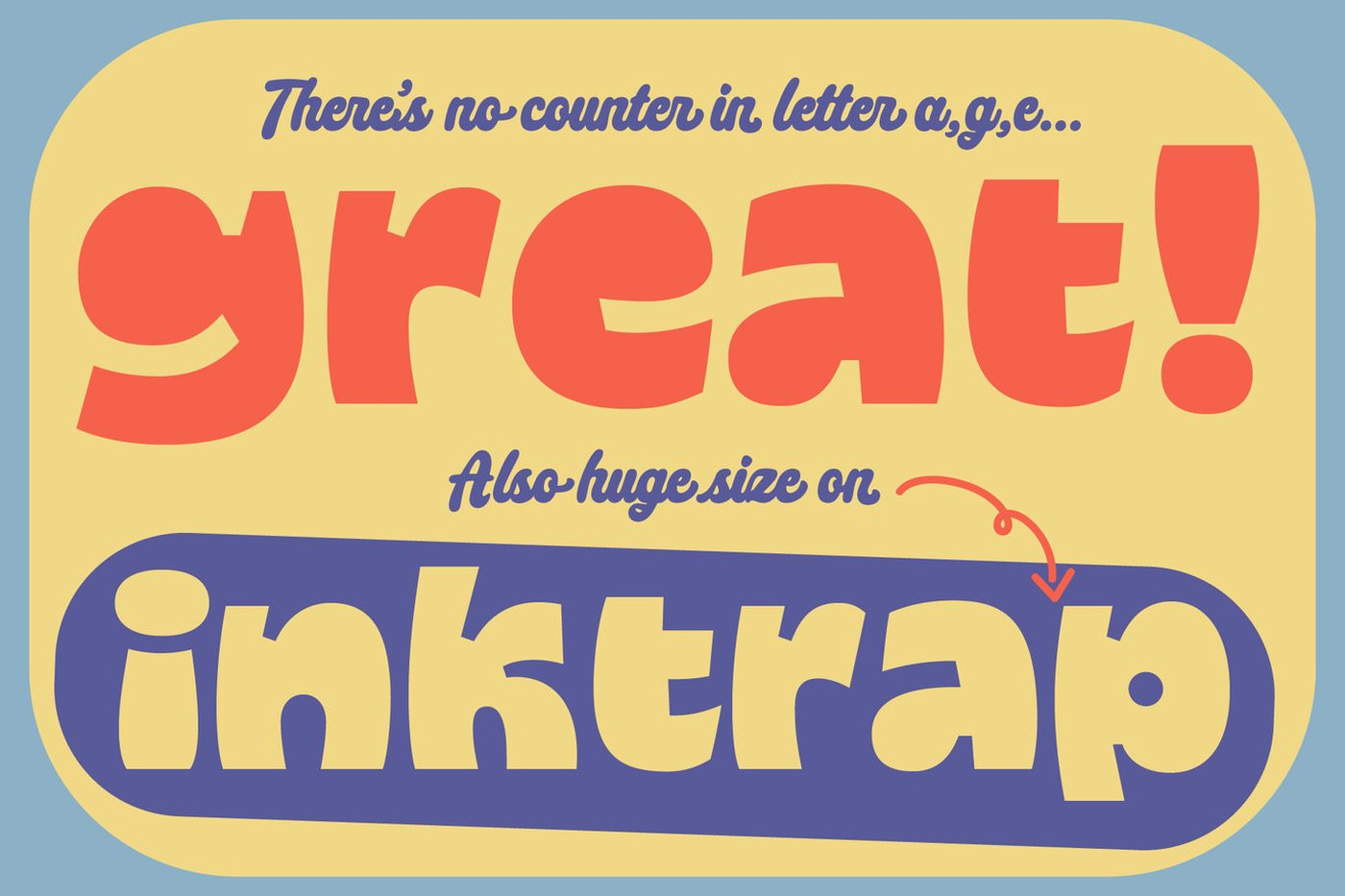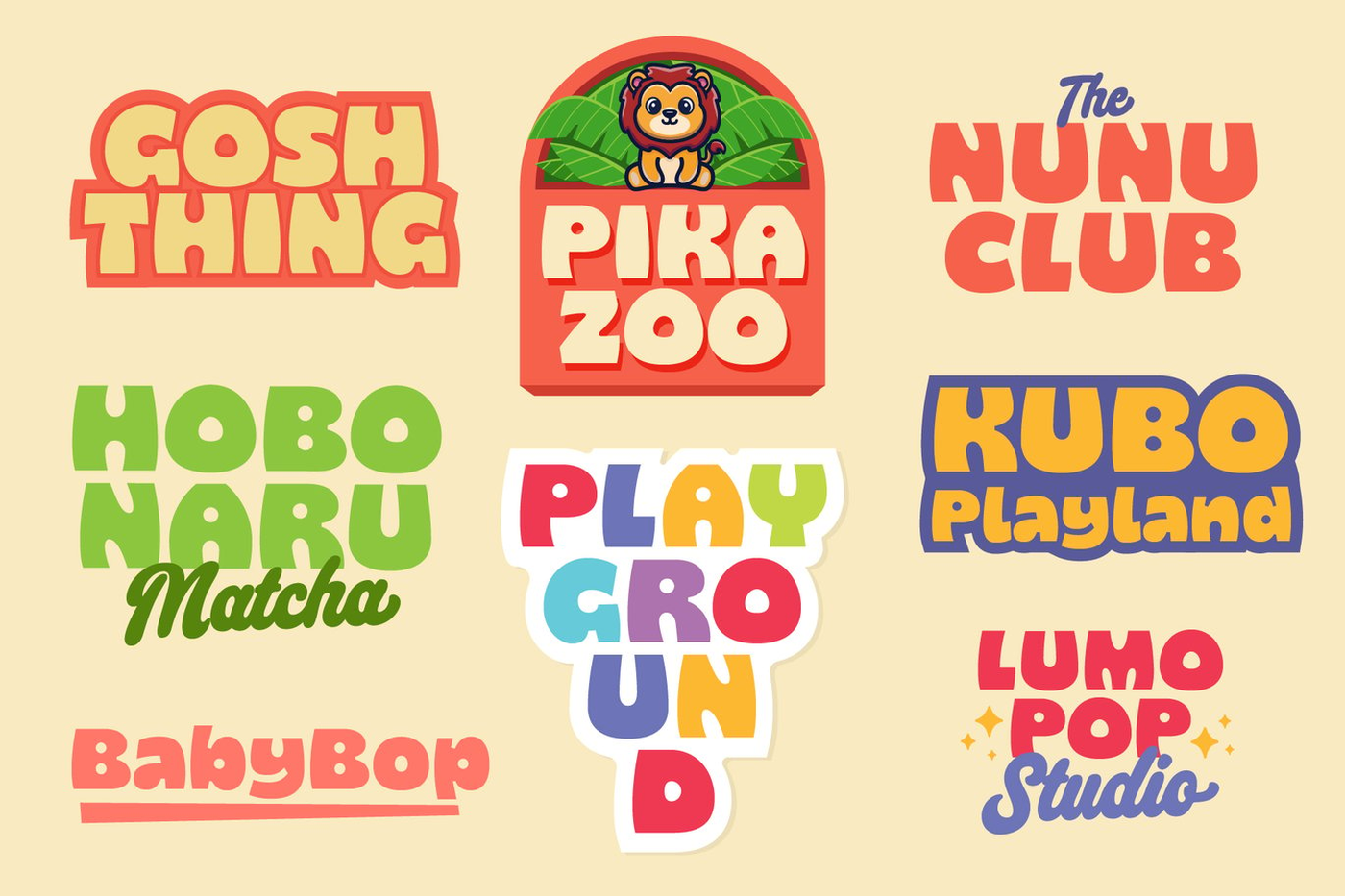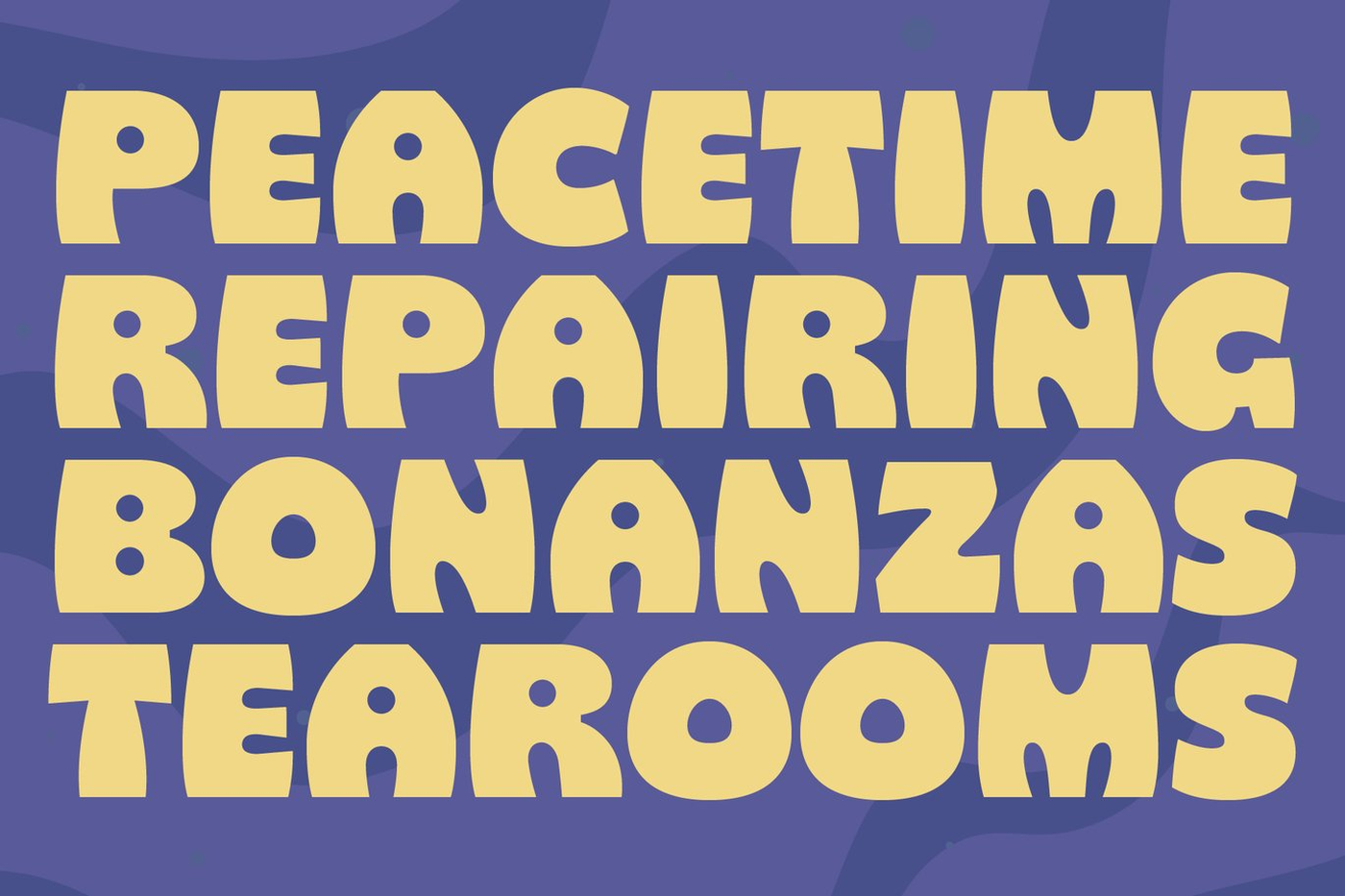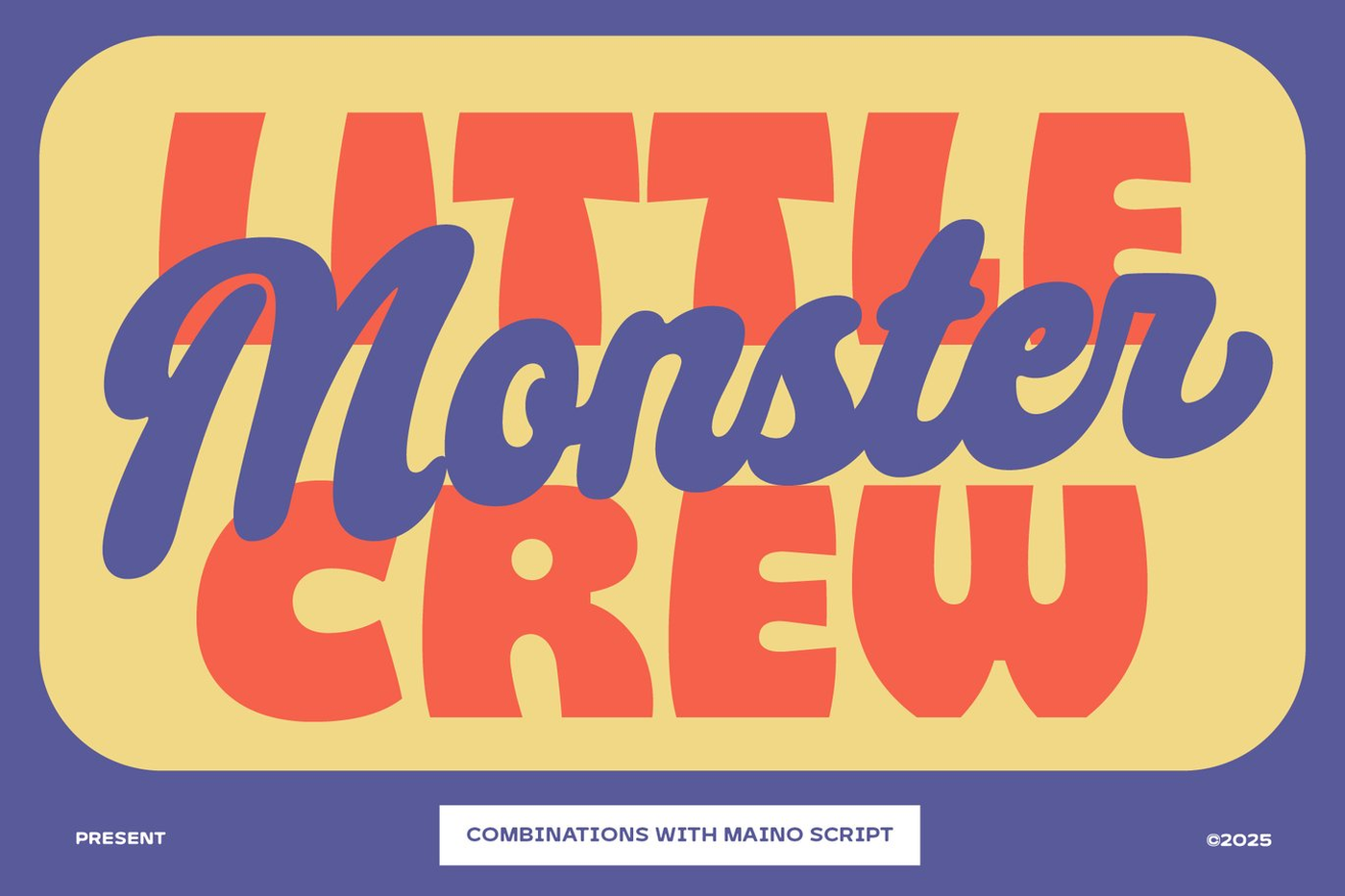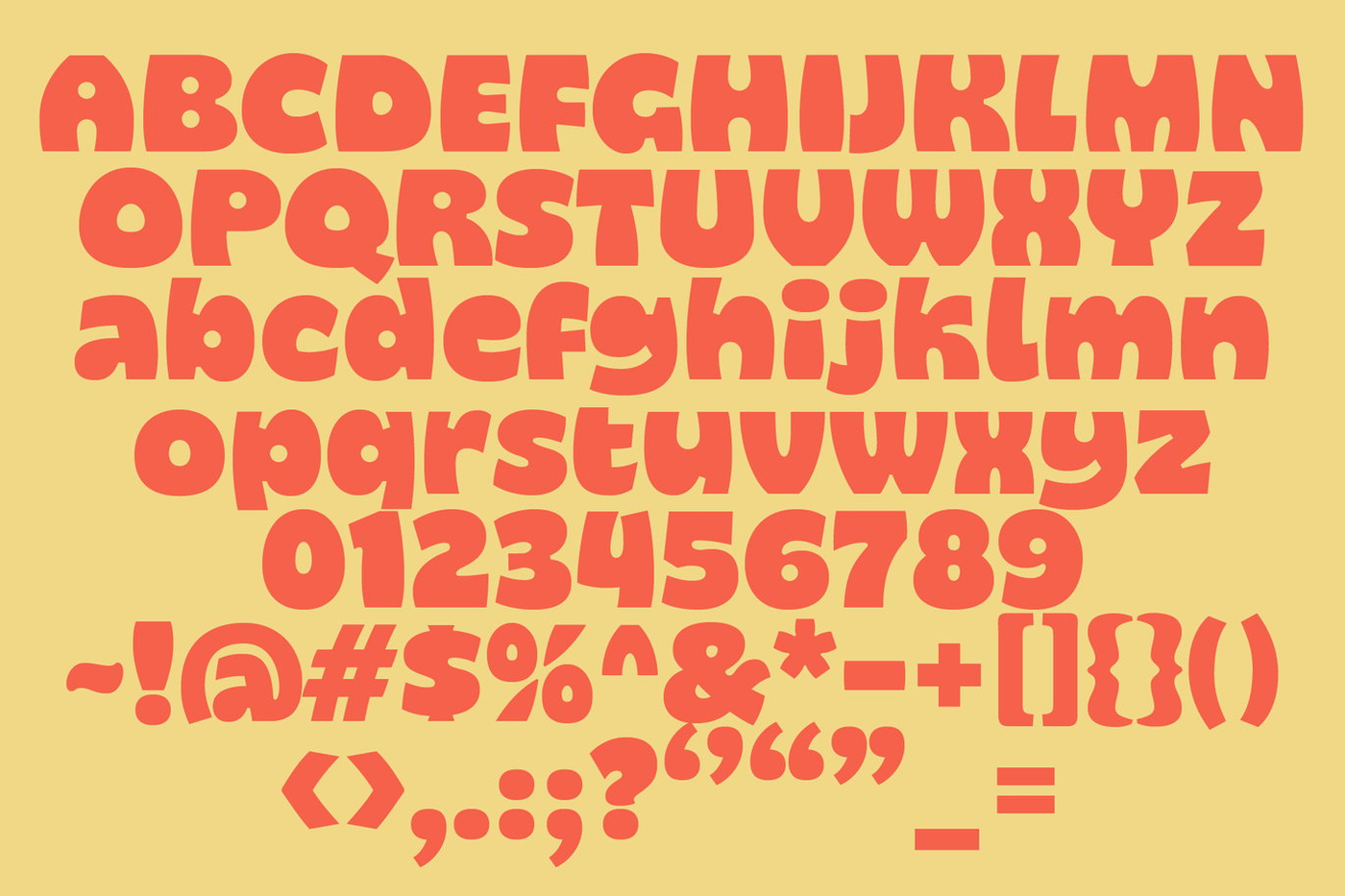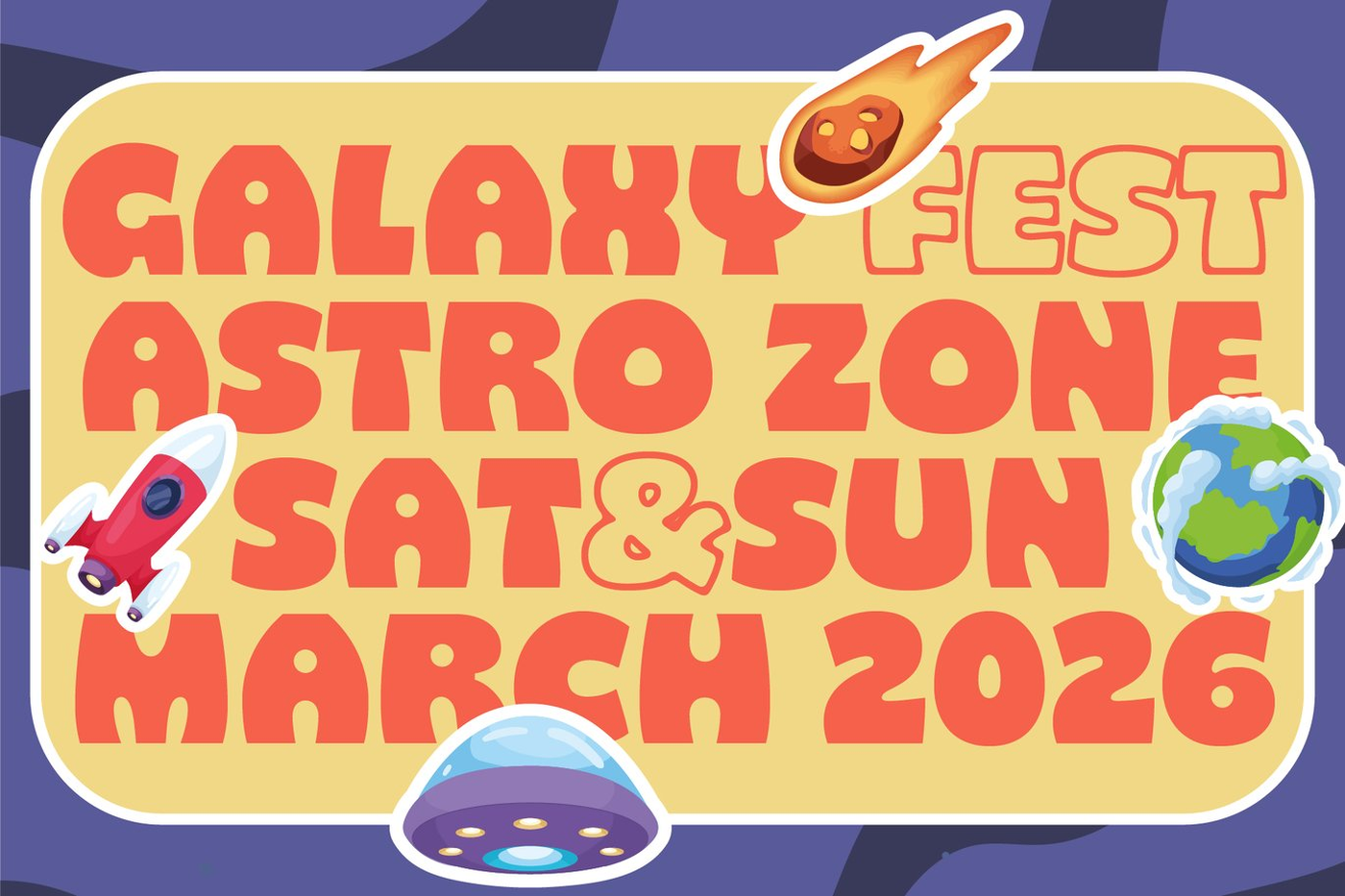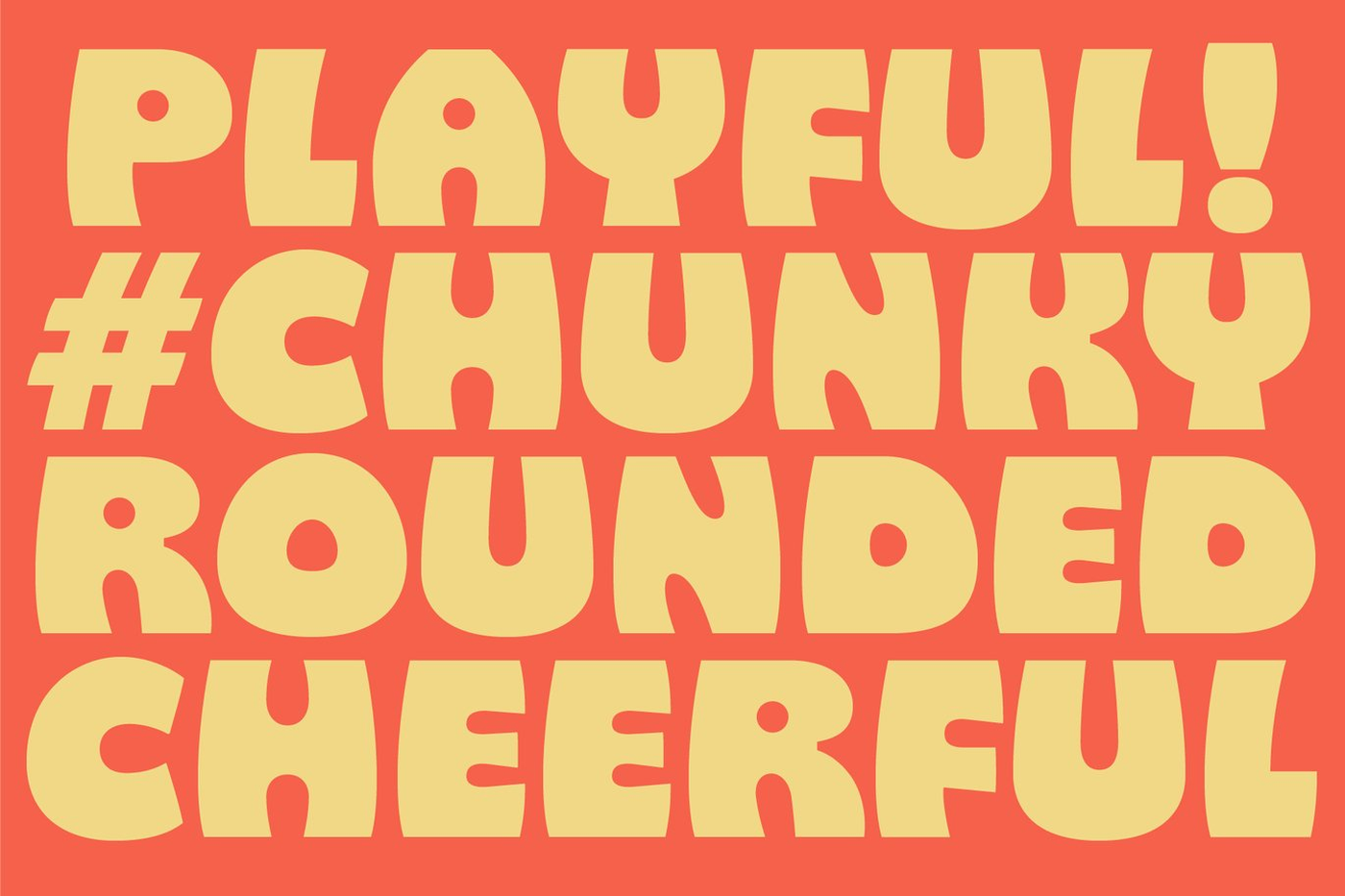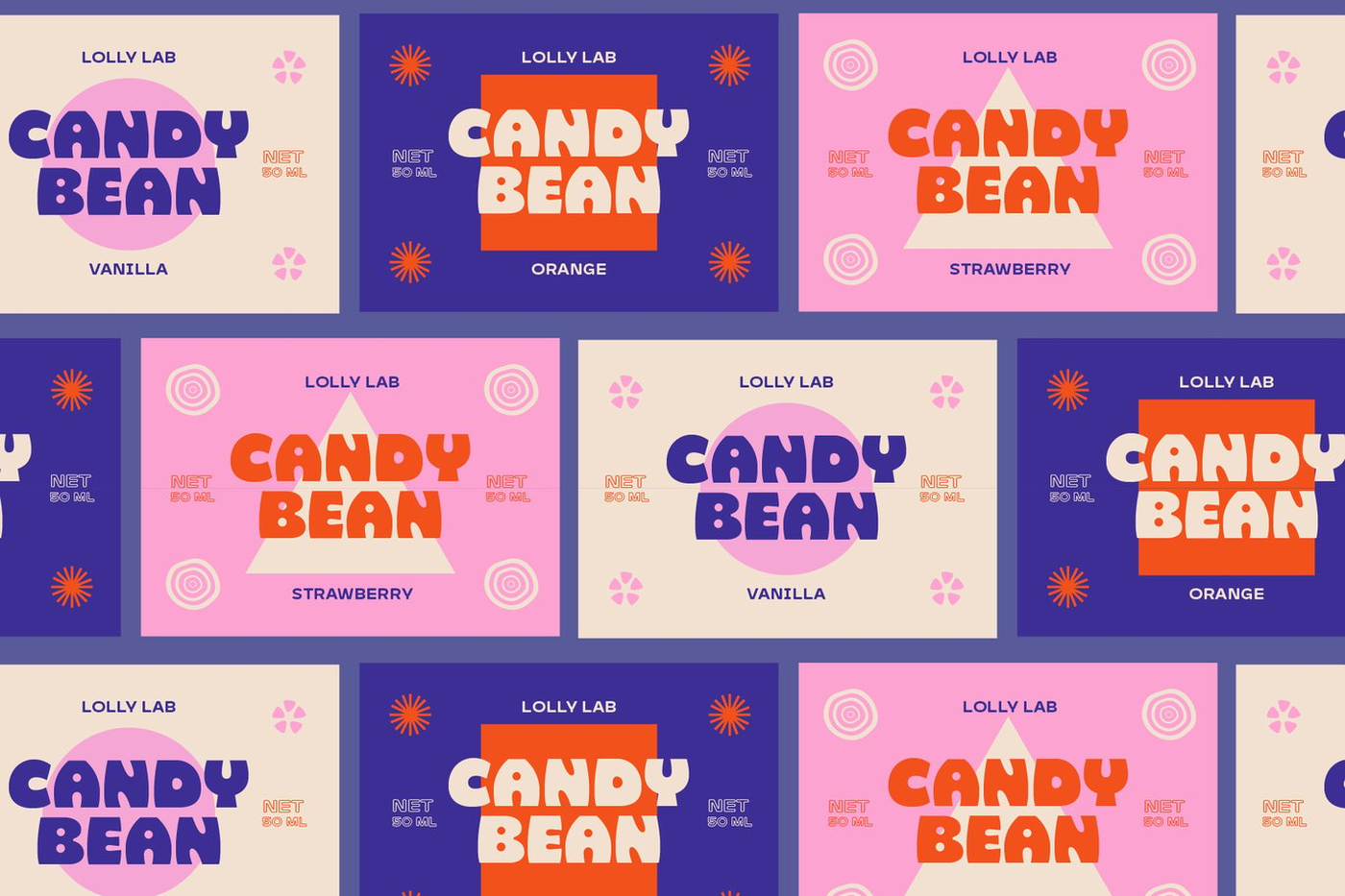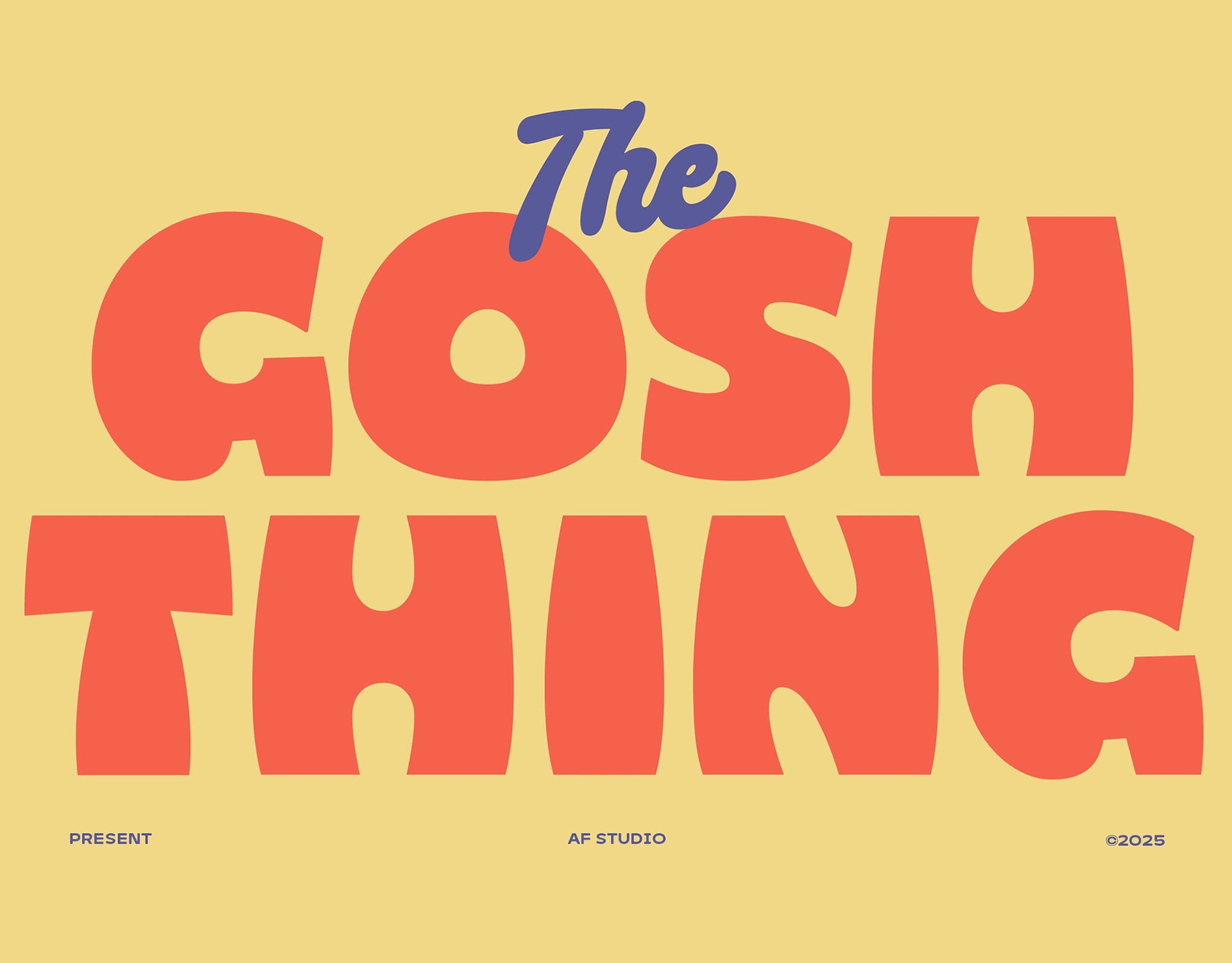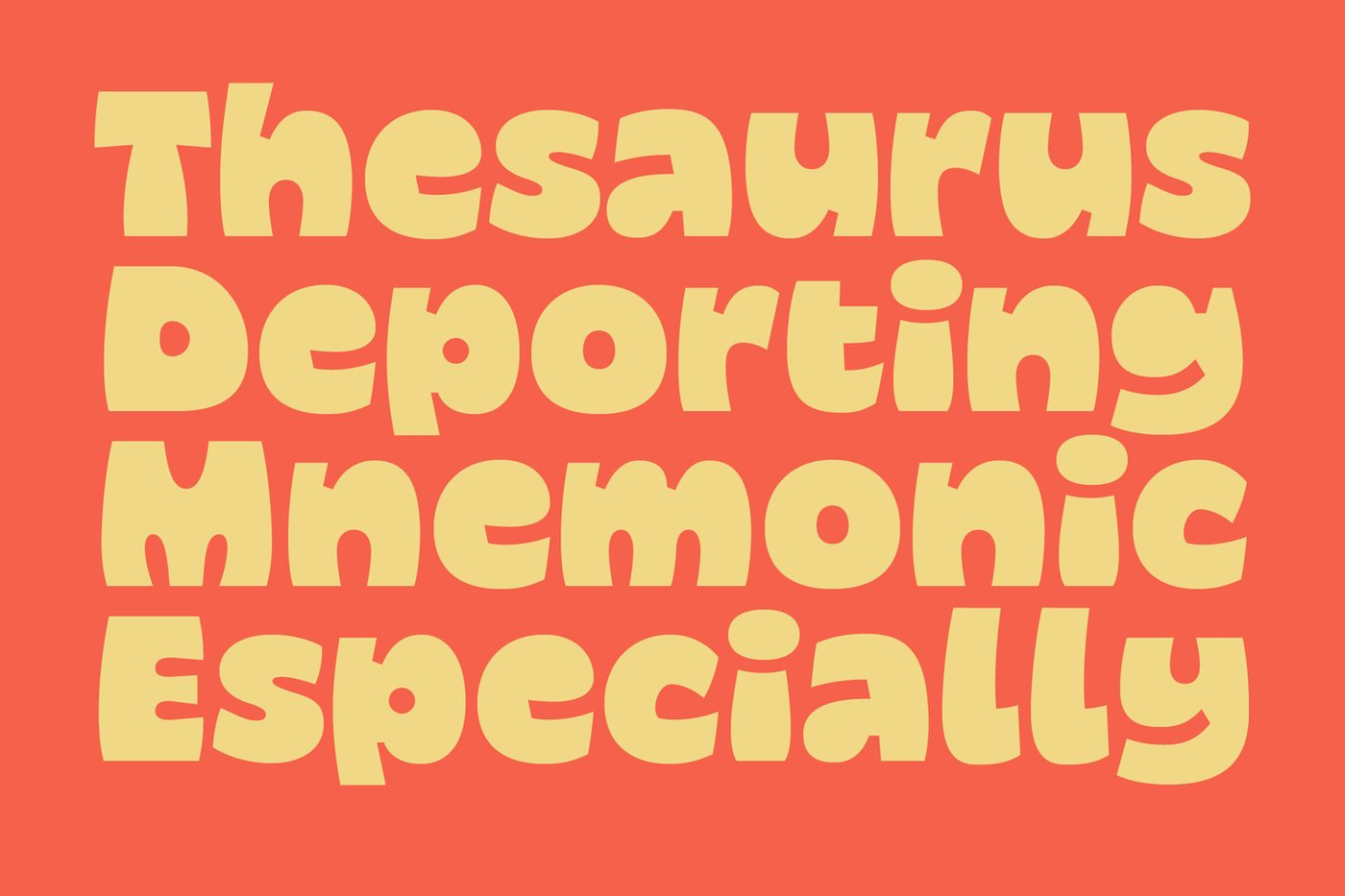
Gosh Thing - Chunky Font
Gosh Thing is a chunky, happy font that’s all about fun vibes and big smiles! It’s bold, round, and full of character — perfect for kids’ stuff, playful branding, event posters, or anything that needs a burst of joy. Gosh Thing doesn’t take itself too seriously. It’s got that friendly, bouncy look that feels a little retro and totally fresh at the same time. The shapes are soft, the curves are chunky, and every letter feels like it’s having a good time.
Designer: Adam Fathony
Font: Gosh Thing